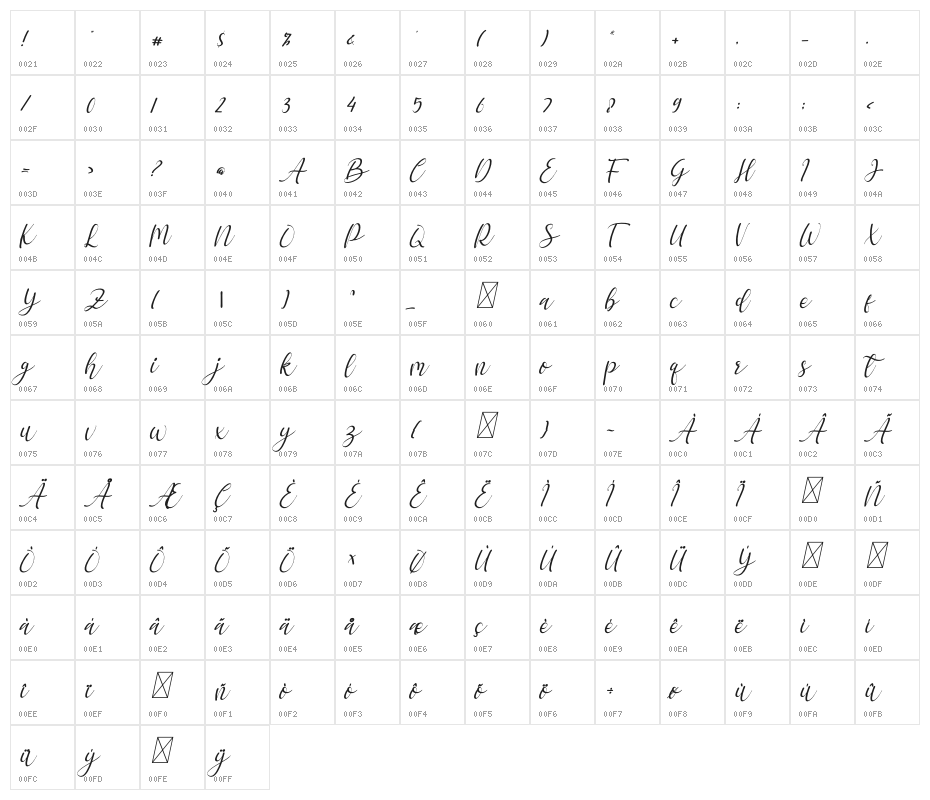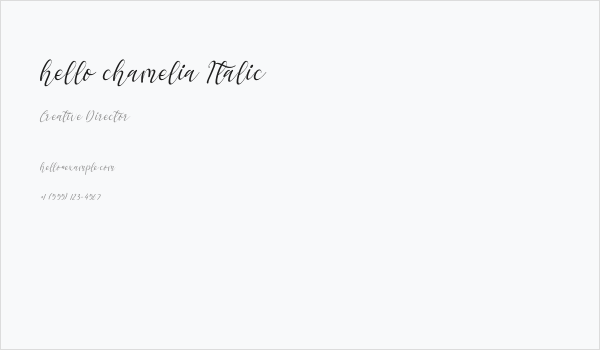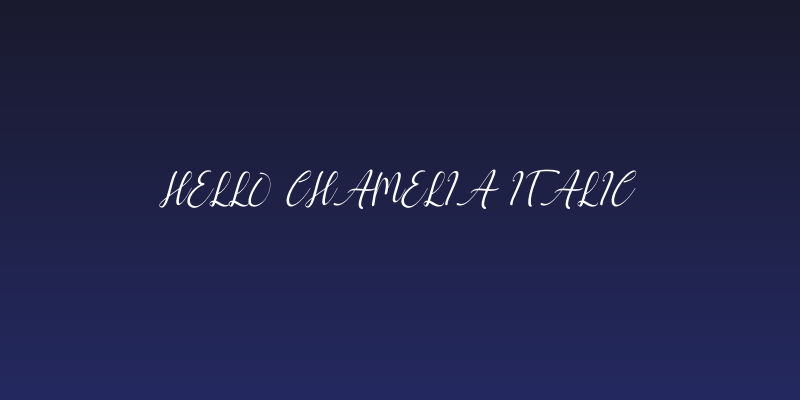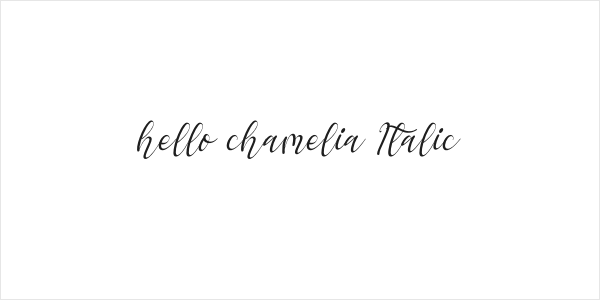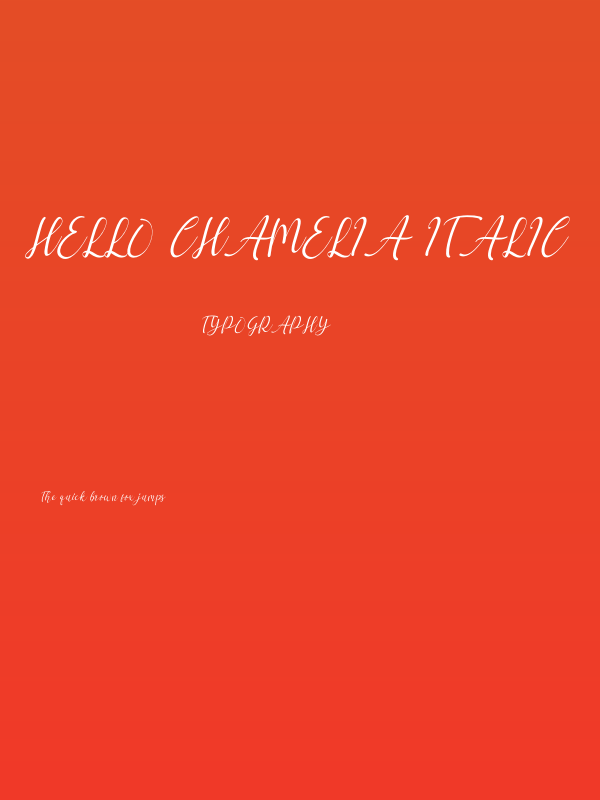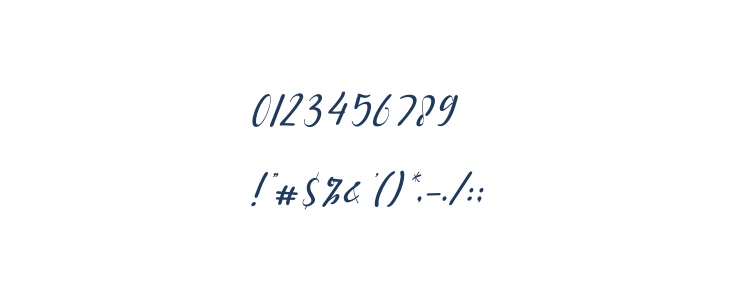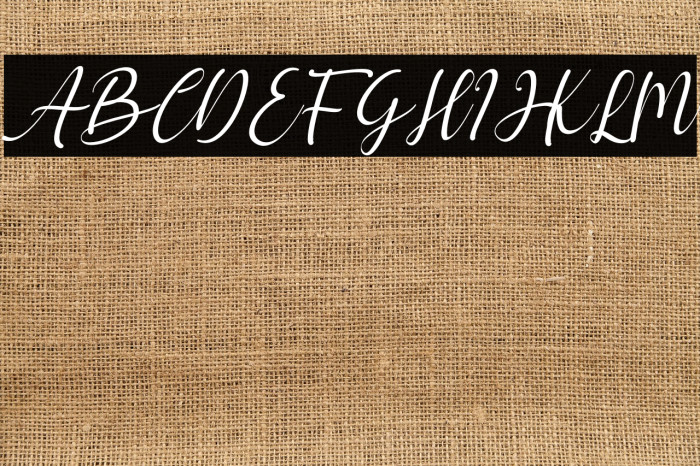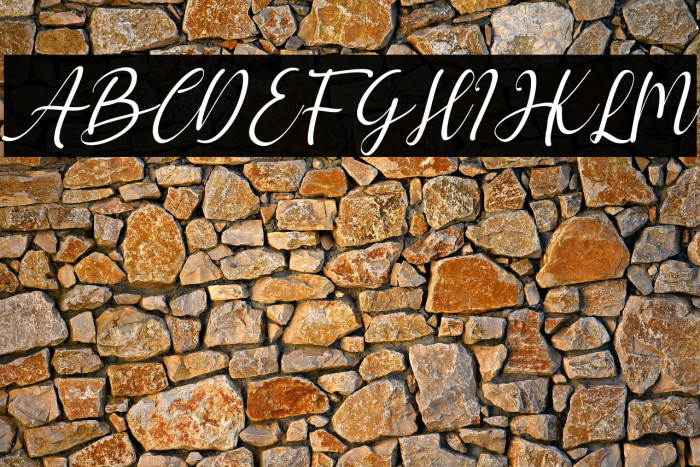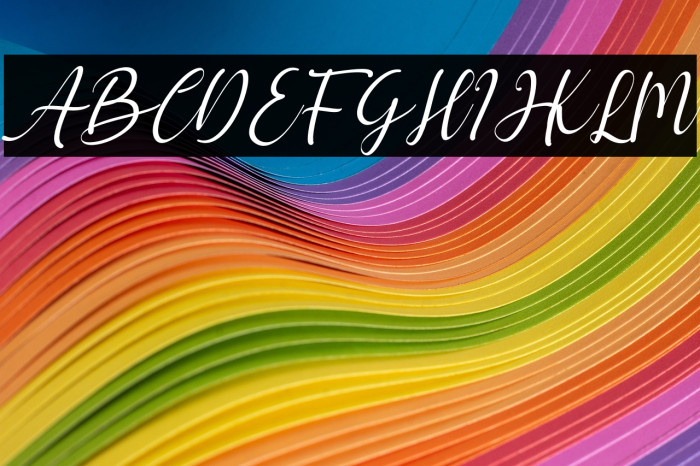
hello chamelia Italic Font
hello chamelia Italic Description
This font exhibits a flowing, cursive style that exudes elegance and sophistication. The characters are crafted with smooth, sweeping strokes that give it a handwritten appearance, making it ideal for projects that require a personal touch. The uppercase letters are slightly more ornate, with flourishes that add a touch of drama, while the lowercase letters maintain a consistent, graceful flow. The numerals and special characters are designed to complement the overall aesthetic, ensuring a cohesive look across all text elements. The italic slant enhances the dynamic feel of the font, making it suitable for creative and expressive designs.
| Overall Style | Elegant, Handwritten |
| Proposed Projects | Ideal for wedding invitations, greeting cards, branding, and any project that requires a personal, elegant touch. |